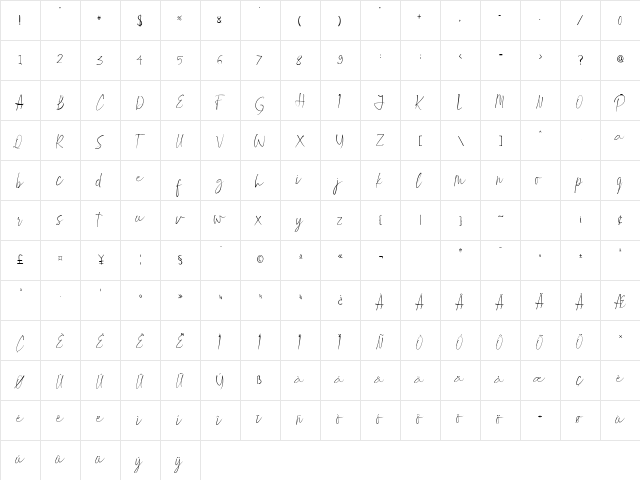
Winter Paradise Regular
| Foundry | Wellscript Studio |
| Designer | Welianto |
Design Context for Winter Paradise Typeface
Winter Paradise takes a measured approach to typography — its balanced proportions and neutral character make it a reliable workhorse for both digital and print work.